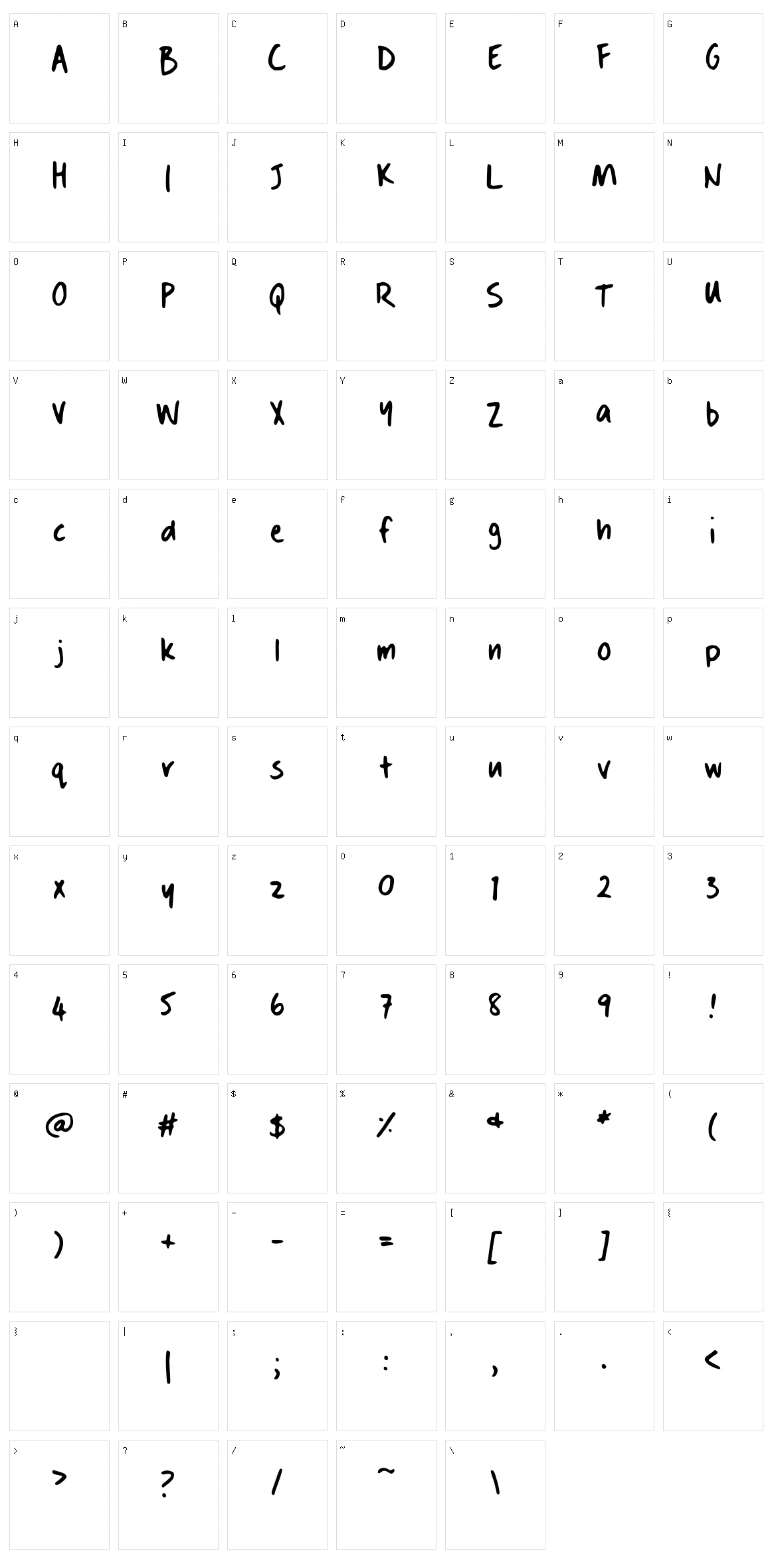
The free font Dans Hand Writing is carefully designed by Daniel Agostino, showcasing a thoughtful balance of creativity and usability and falls under the Script font style. When you download the ZIP file, it contains only 18.52 KB of font files, making it lightweight and quick to download. Please review the license details below to understand permitted usage and distribution rights. If license information is not available, we recommend using this font for personal projects only or contacting the author directly for commercial usage permissions.